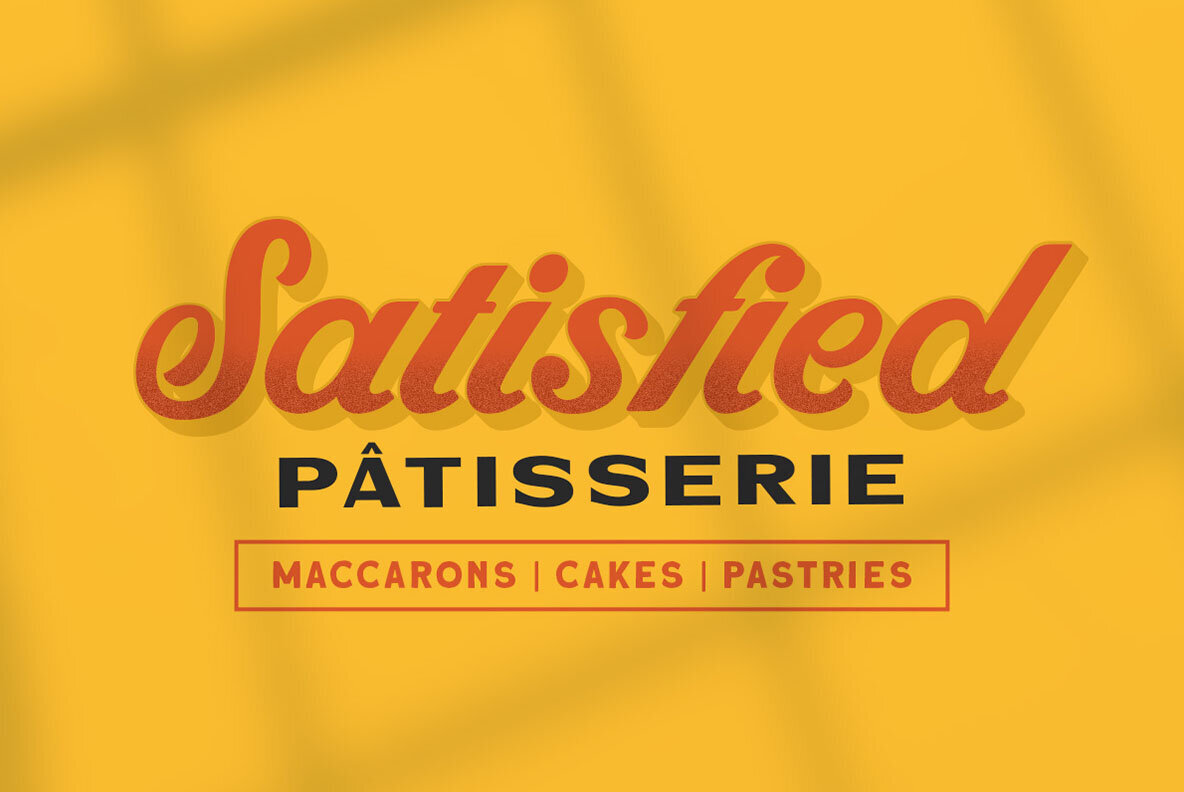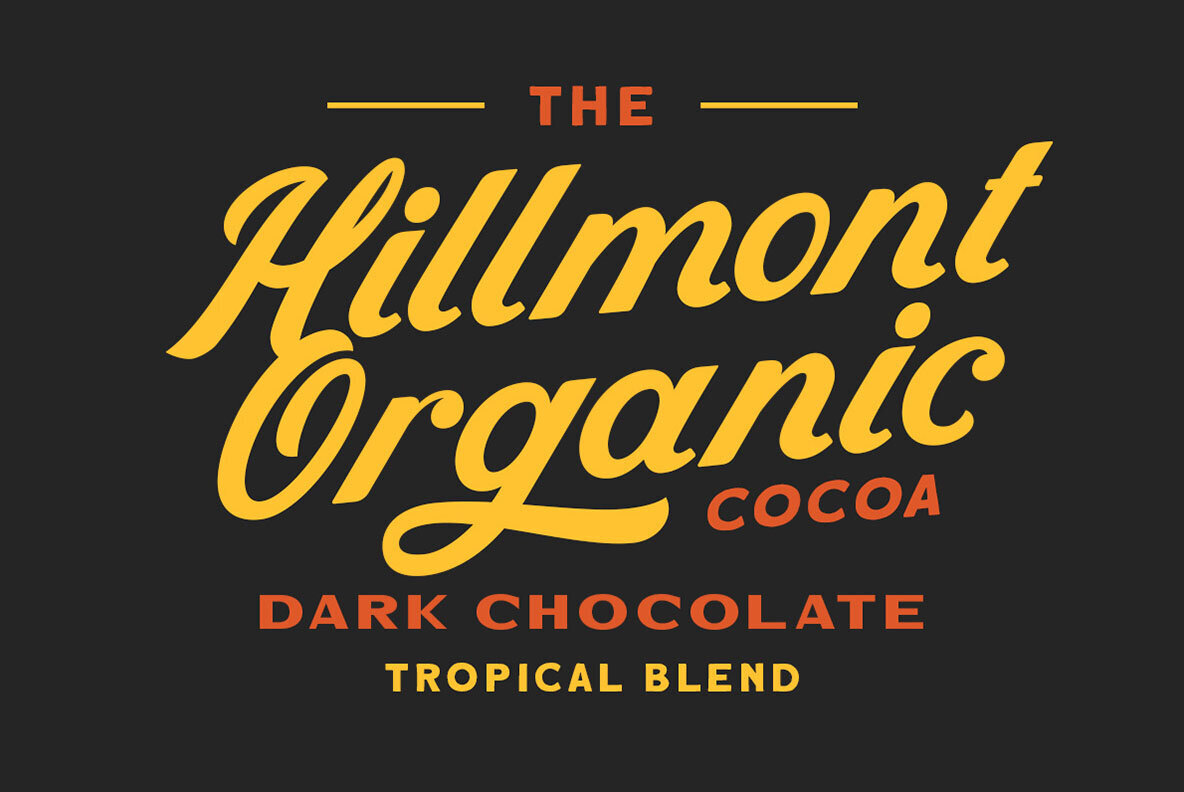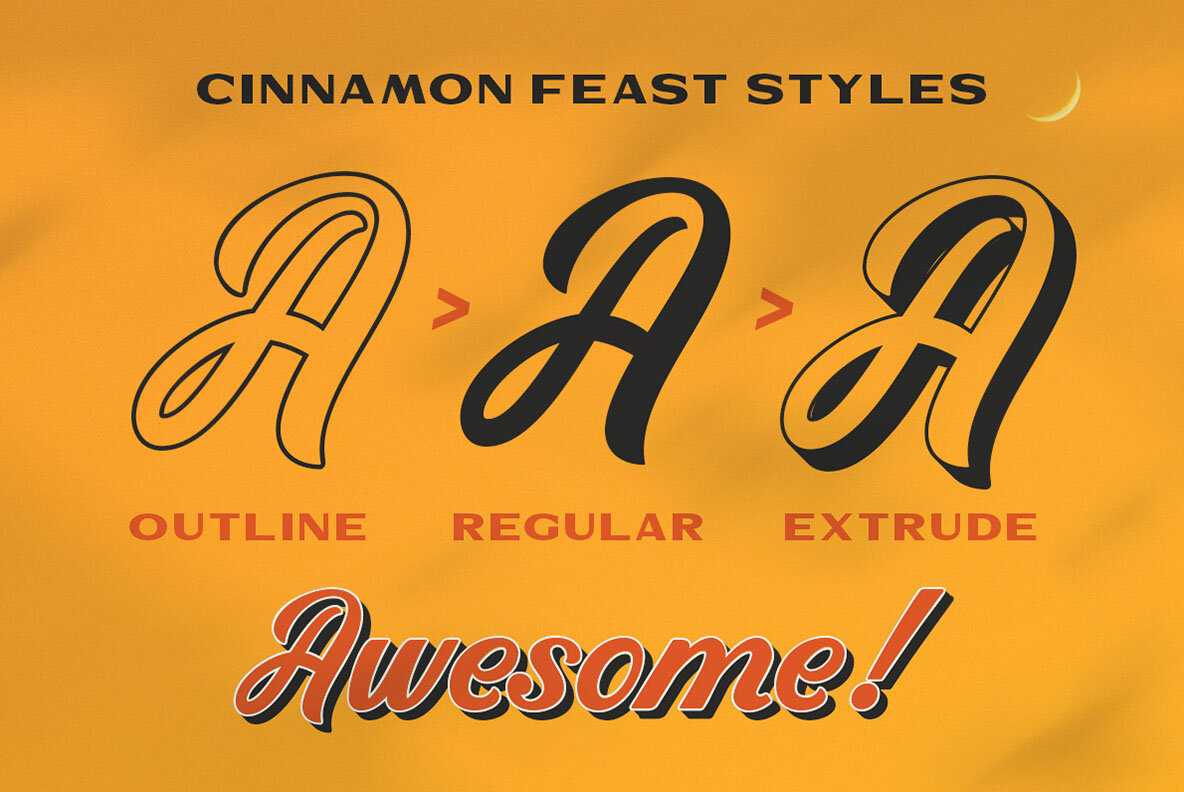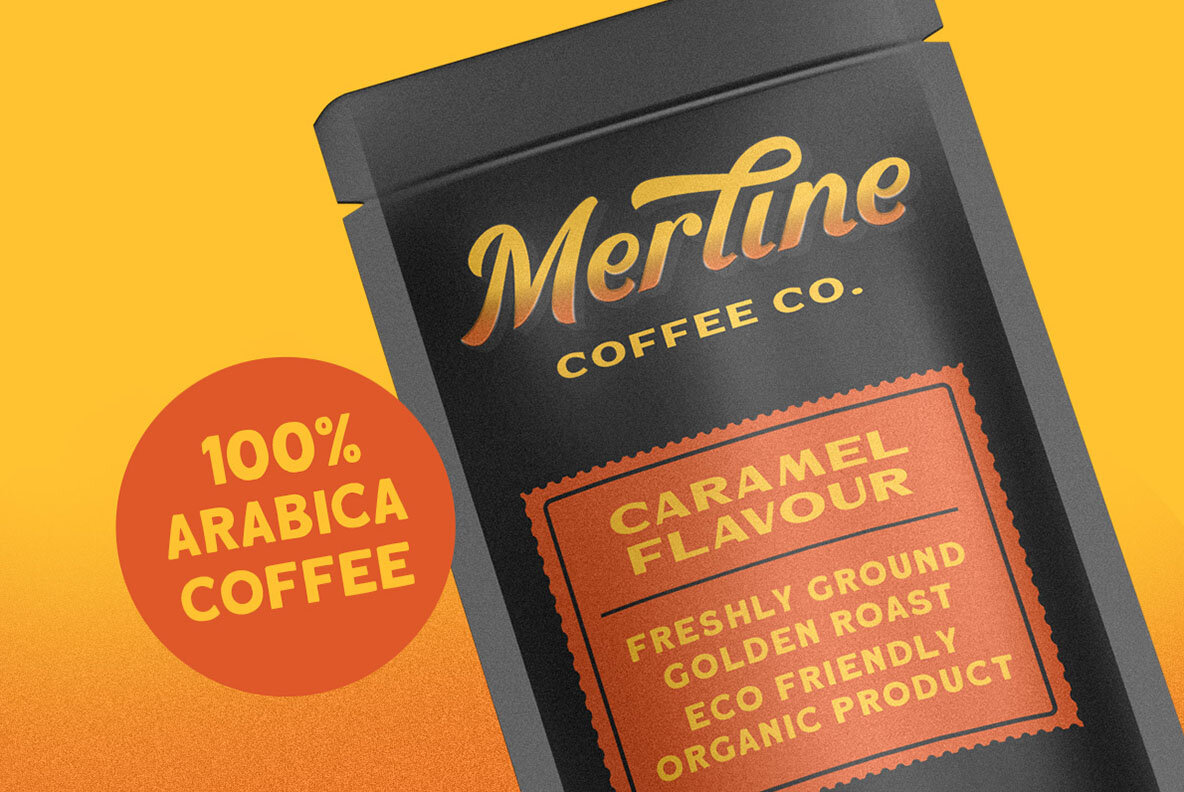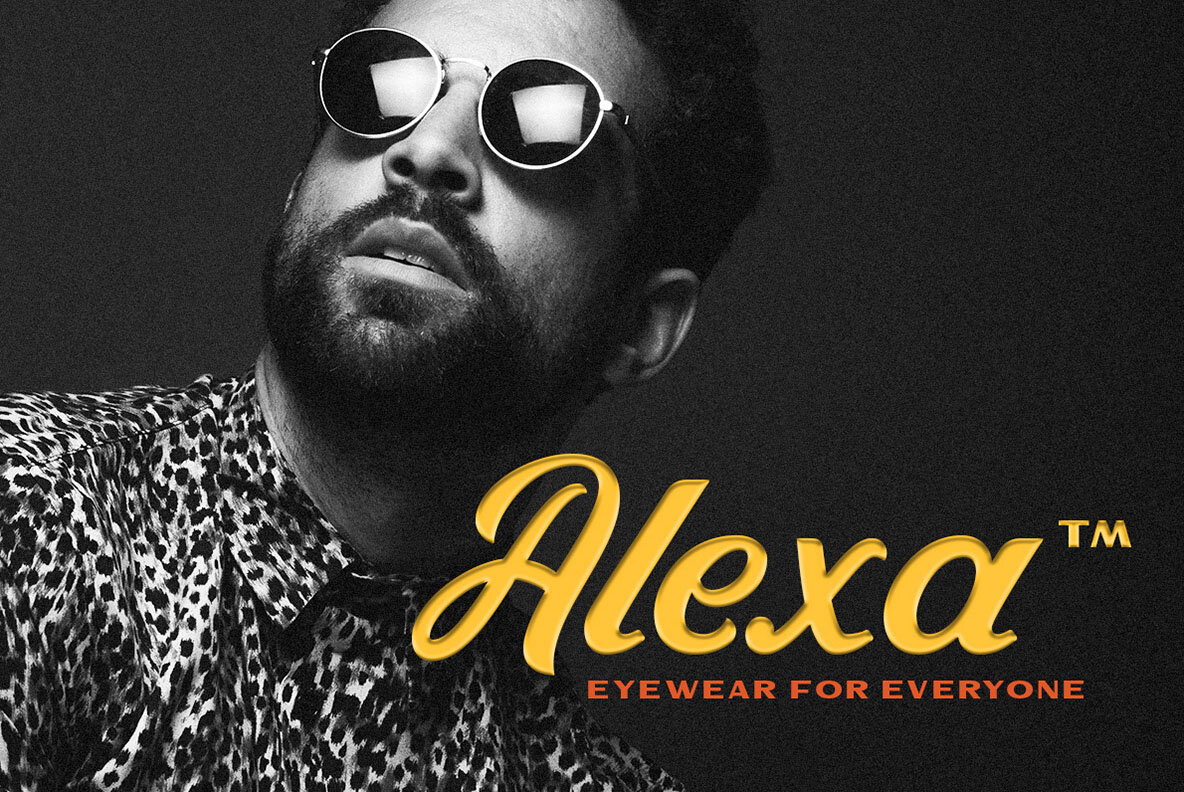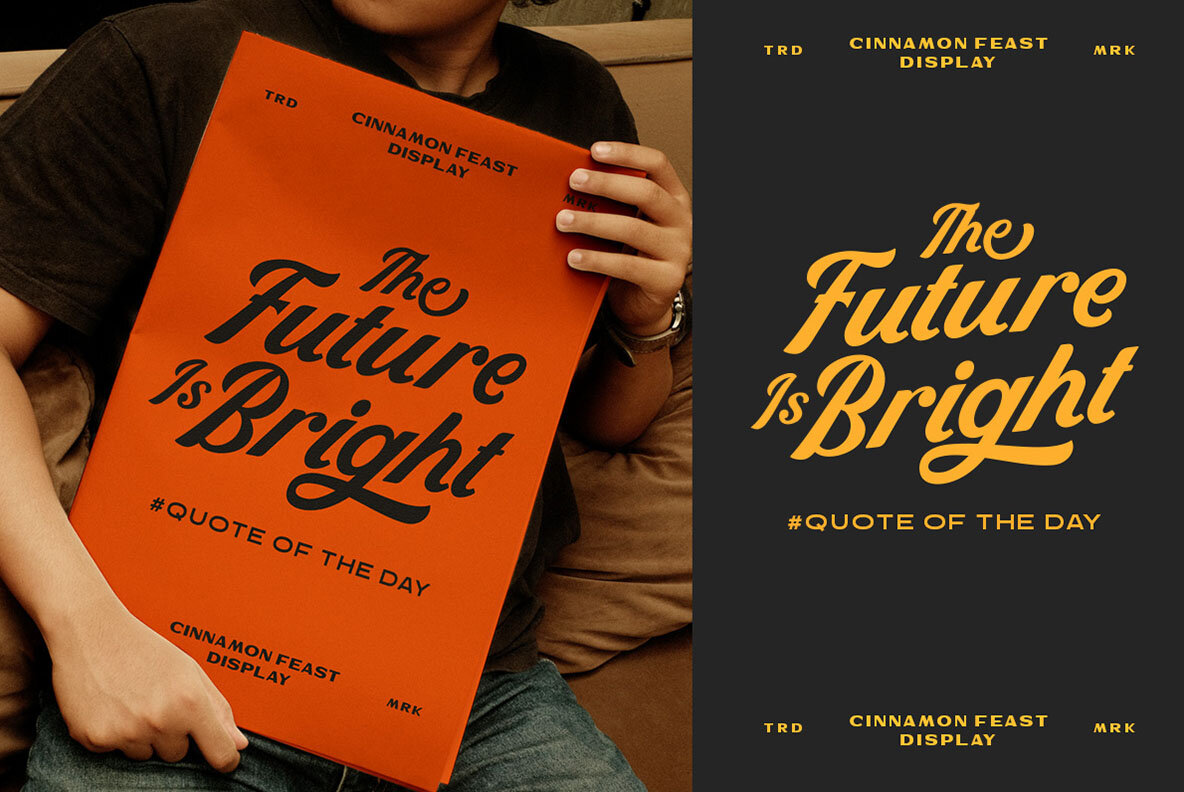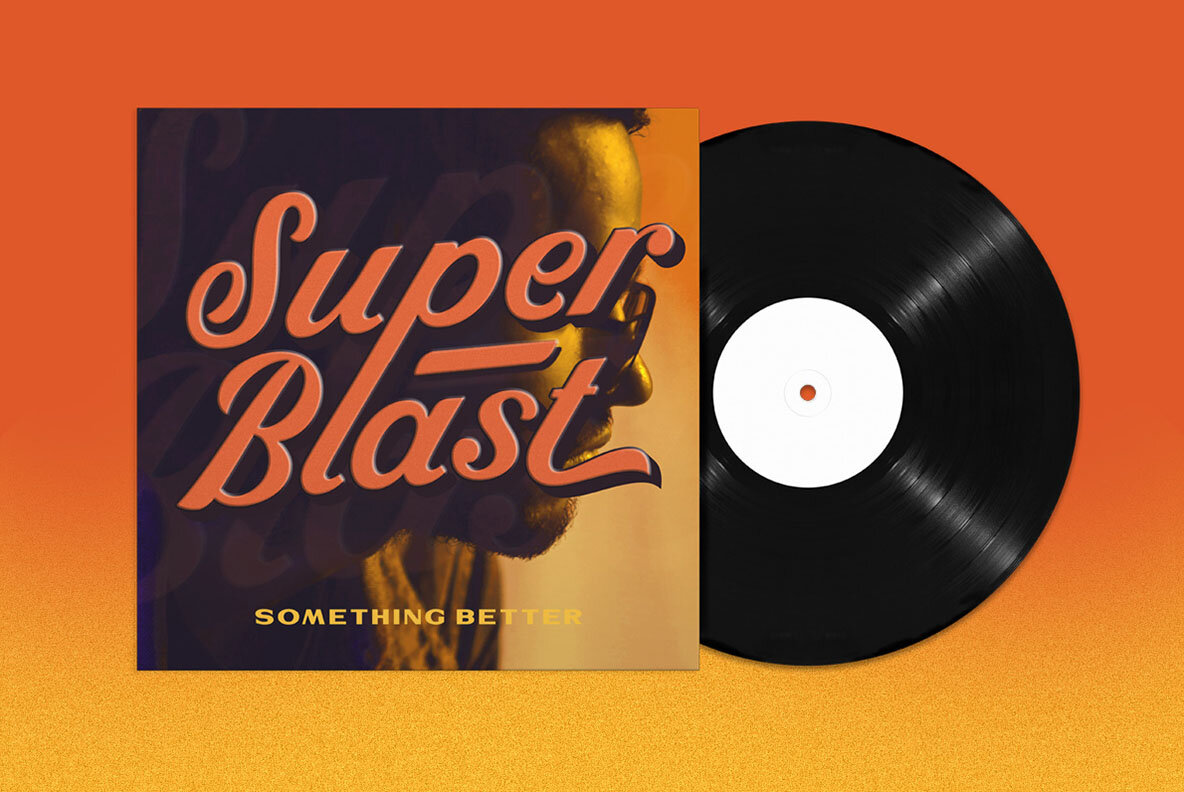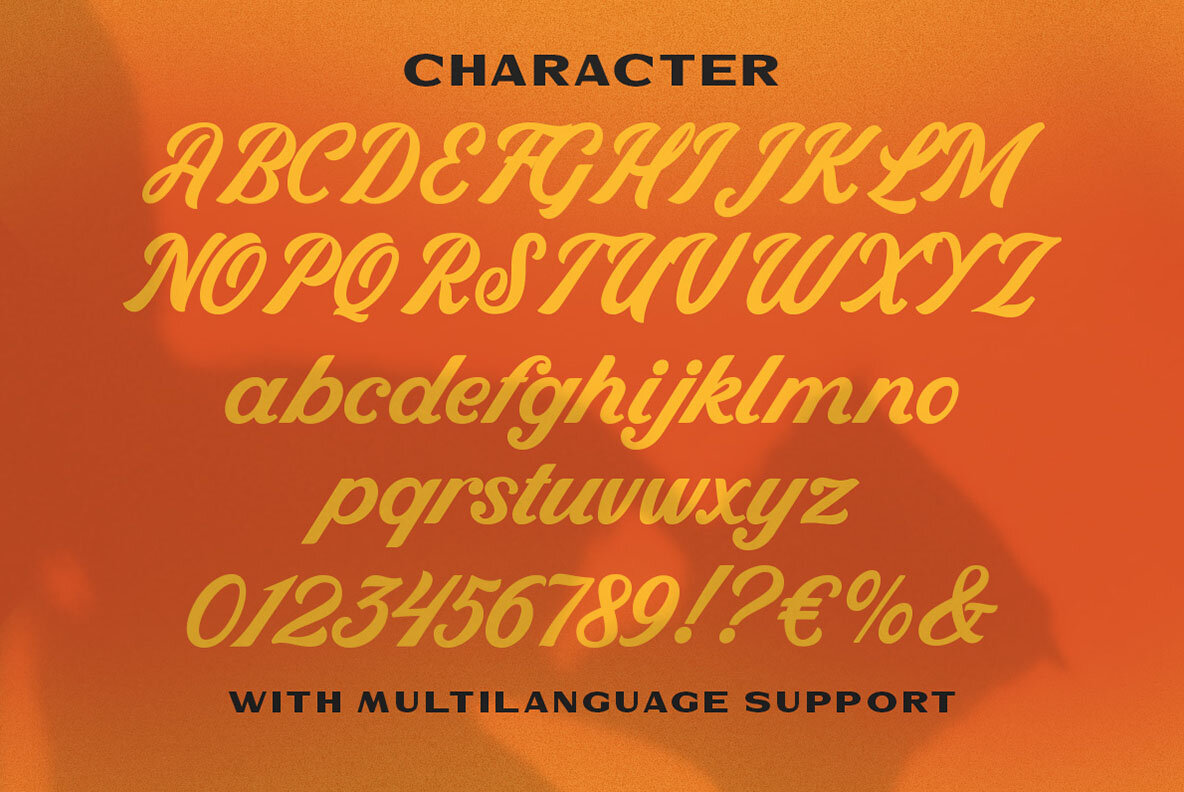
Cinnamon Feast Font
Cinnamon Feast is a meticulously crafted display typeface that combines a classic elegance with premium quality. It is versatile enough to enhance both modern and vintage-themed projects. Ideal for logos, headlines, titles, and formal settings, Cinnamon Feast is perfect for invitations, packaging, magazines, greeting cards, and more. For optimal use, we recommend using this typeface with programs that support OpenType features and Glyph panels, such as Adobe applications and Corel Draw, to fully access its range of glyph variations.Cinnamon Feast: A Sophisticated Classic Display Font